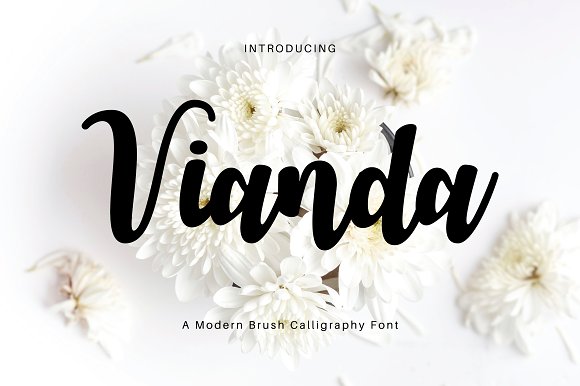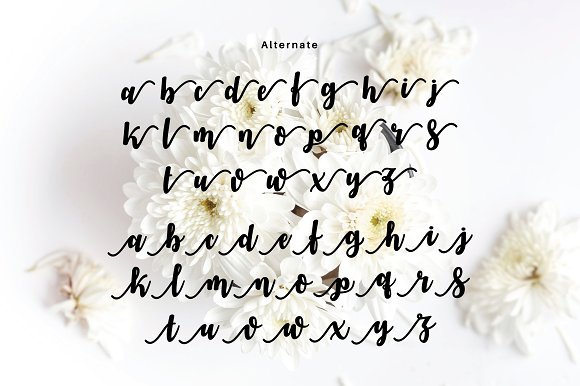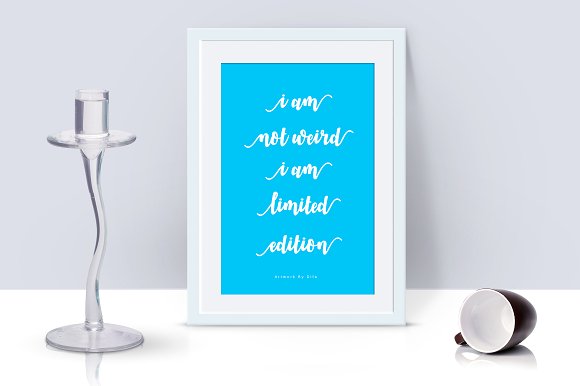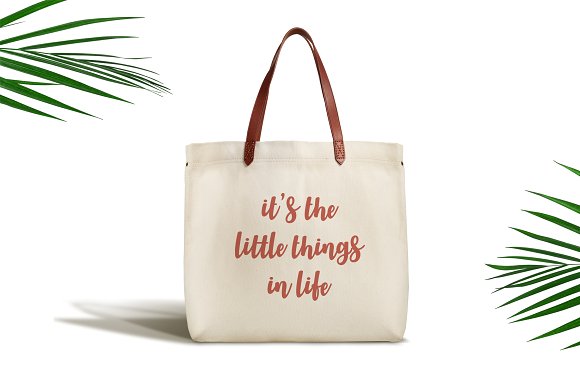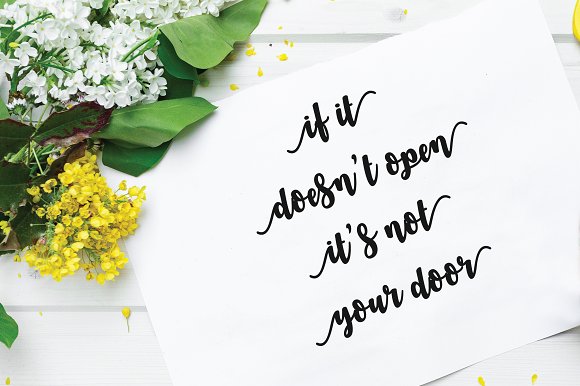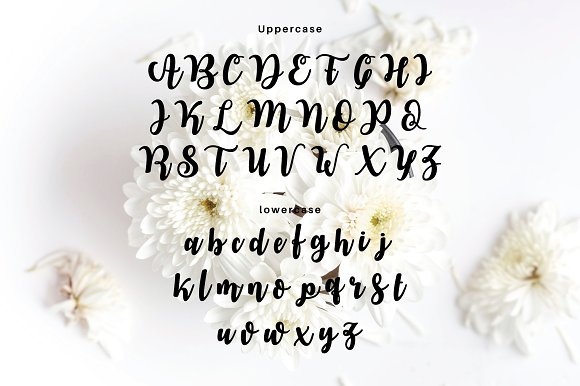
VIANDA Font
A phenomenally beautiful and elegant script with a lot of daring energy, allowing you to shape dazzling hand-made typography in a quick. With extra bouncy bends and circles, Vianda Script is certain to emerge your designs usability: posters,quotes, wedding cards, headers, logos, welcomes, and bunch of Your creative energy minds.